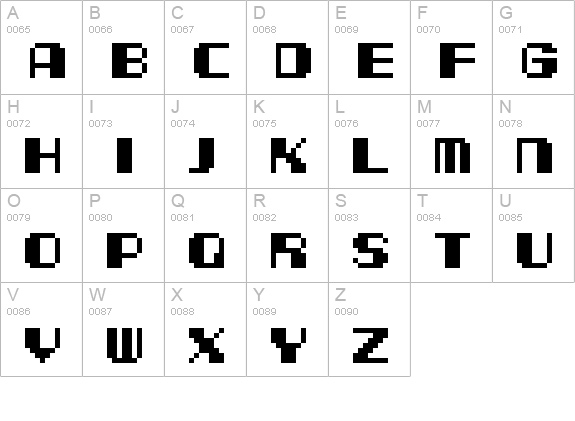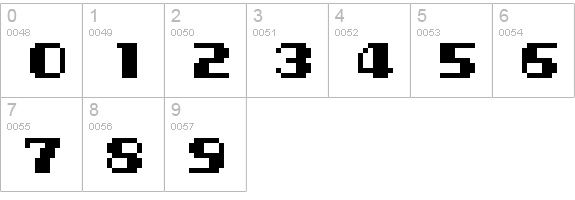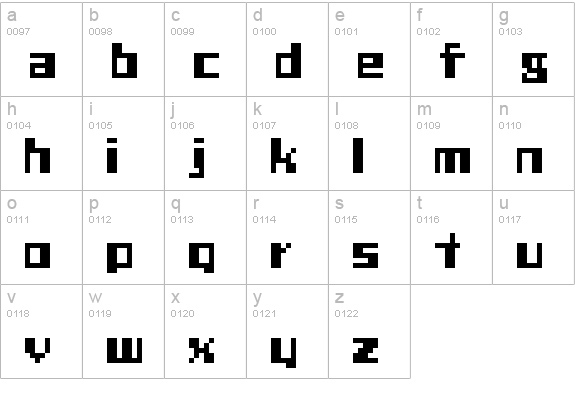
Solvalou Font Details
Introducing Solvalou, a beautifully crafted font that combines elegance and modernity in perfect harmony. This versatile typeface boasts clean lines and a sleek, contemporary aesthetic, making it ideal for a wide range of design projects. Solvalou is not only visually stunning, but it also offers a wide range of weights and styles, providing endless possibilities for creative expression. Whether you're designing a logo, crafting a magazine layout, or creating eye-catching social media graphics, Solvalou has got you covered. But what truly sets Solvalou apart is its accessibility. This extraordinary font is available for free download exclusively at FontsMarket.com. Yes, you read that right – Solvalou is freely available, allowing designers of all skill levels to incorporate this sensational typeface into their work without breaking the bank. So why wait? Elevate your design game with Solvalou – the font that effortlessly combines sophistication and contemporary design. Download it today at FontsMarket.com and unlock a world of creative possibilities.